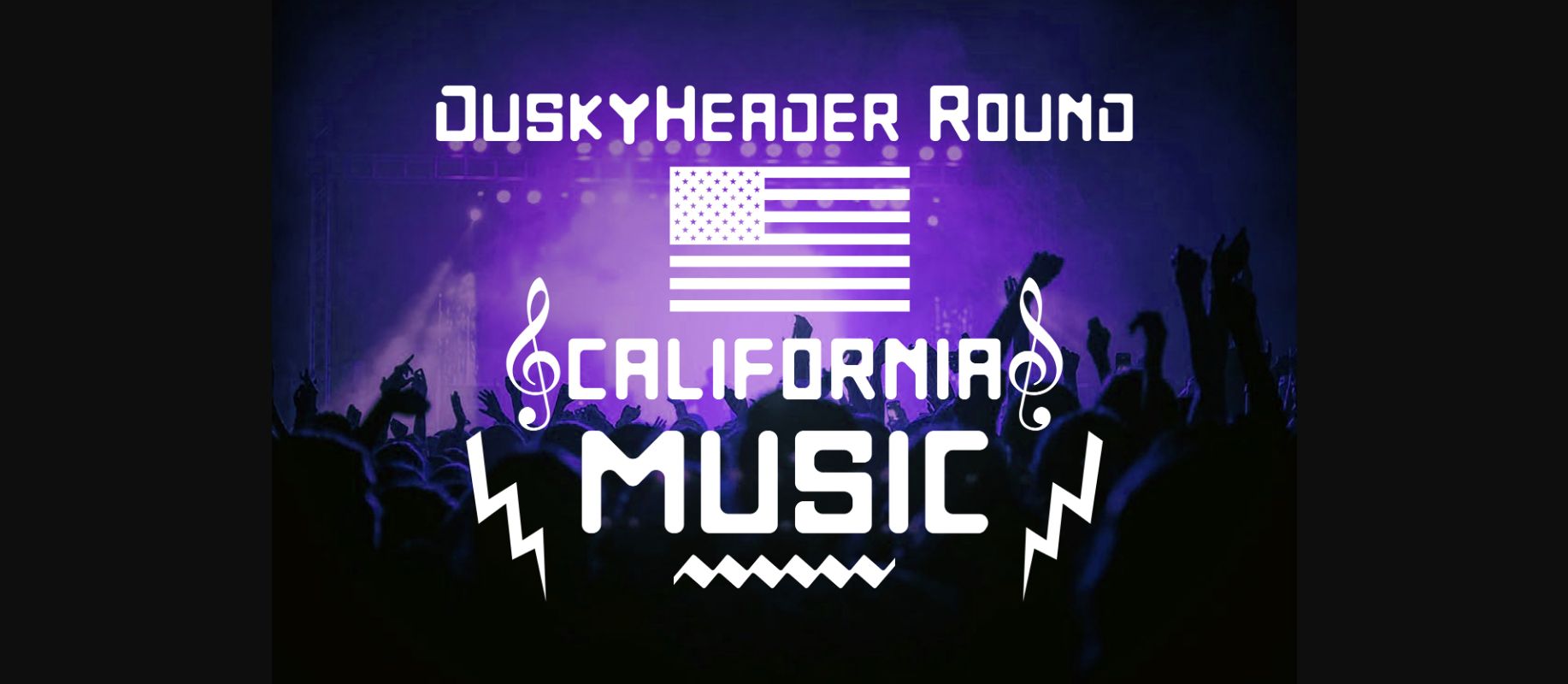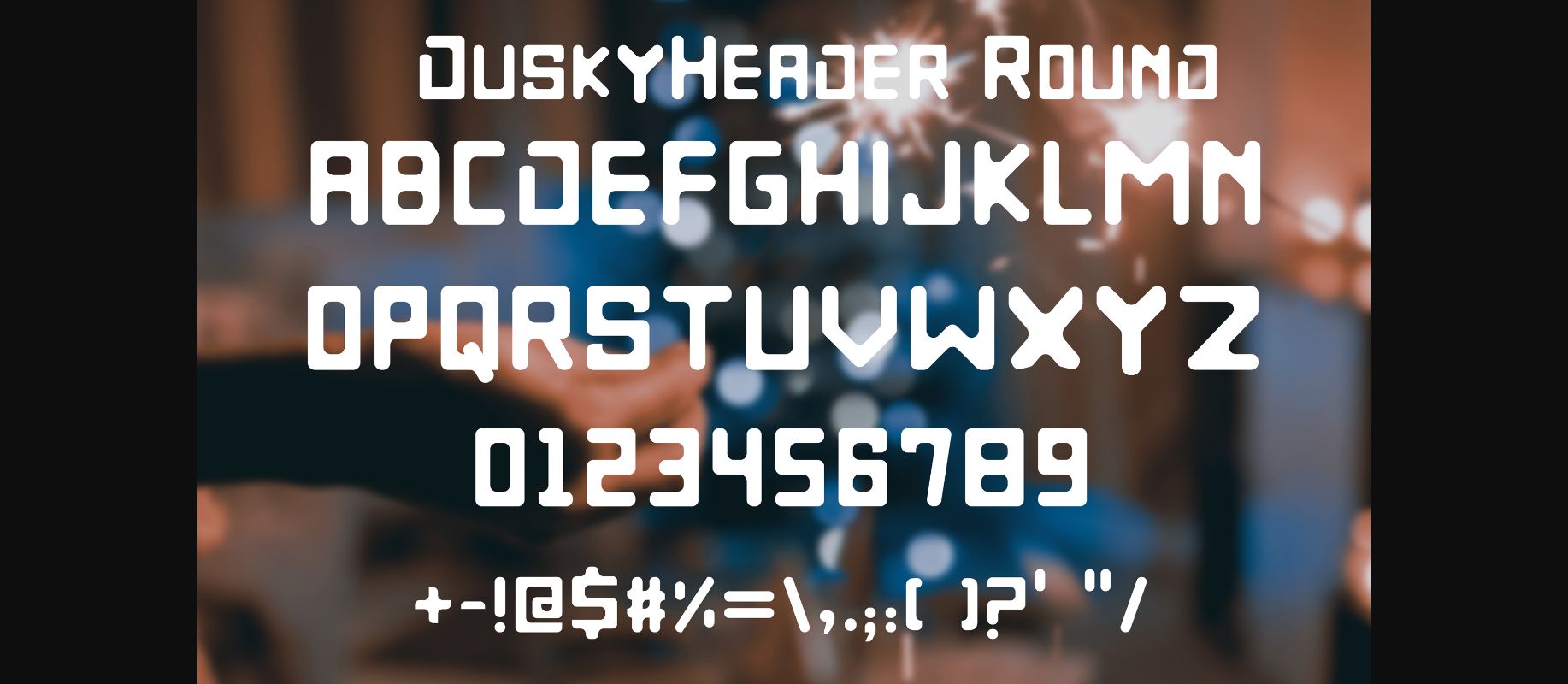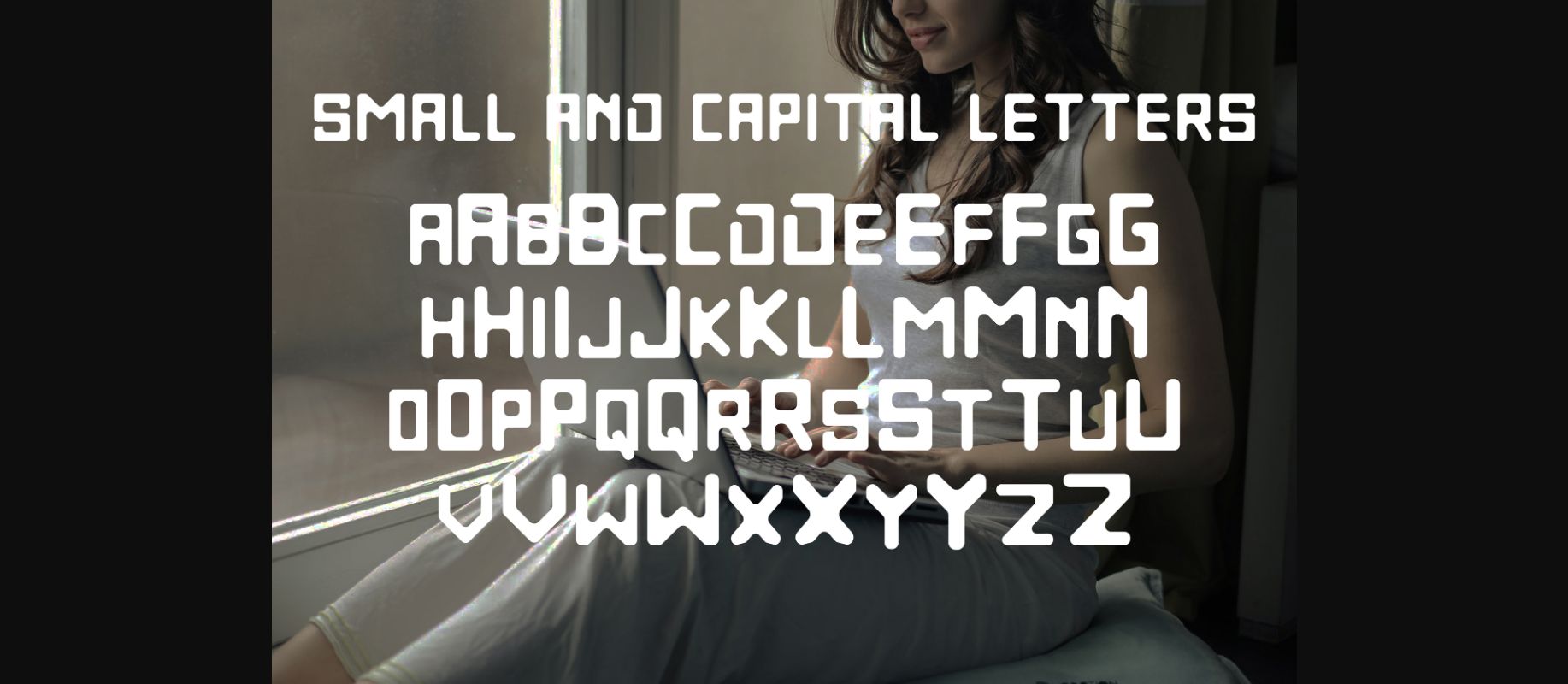
DuskyHeader Round Font
About DuskyHeader Round Font
DuskyHeader Round is a cool font which looks great on t-shirts, logos, posters and more! It can be used as a header font or to highlight any important text to catch viewers attention.